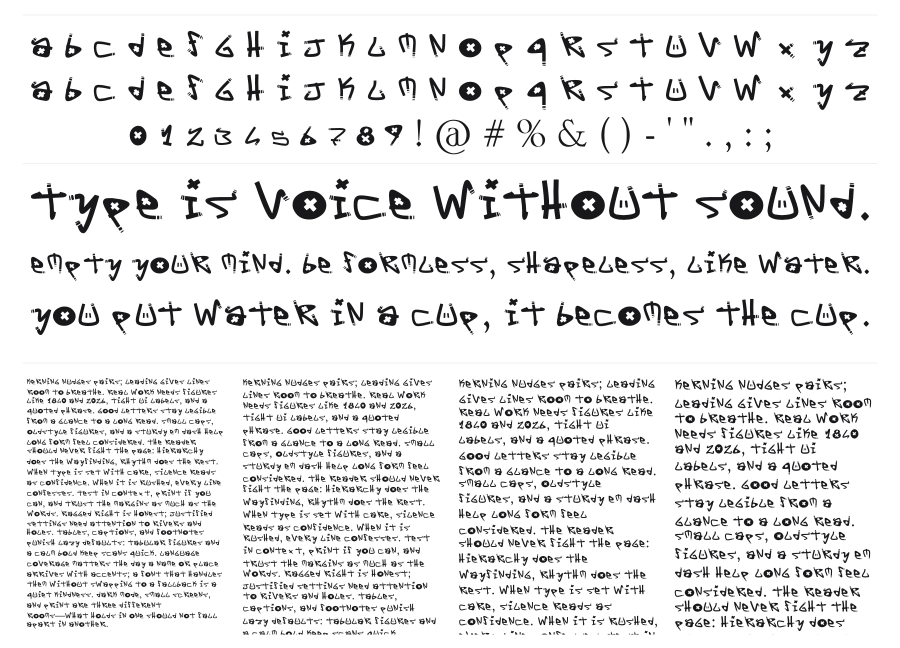
Y-Yo Tags
by Giangiuseppe Vedele
Y-Yo Tags is a bold, thick comic-style typeface by Giangiuseppe Vedele with chunky letterforms that feel loose and hand-drawn, like graffiti tags filtered through a Saturday morning cartoon. The playful, slightly quirky shapes keep things casual and energetic, making it a solid pick for headlines, posters, children's projects, or anything that needs to feel fun and a little irreverent.